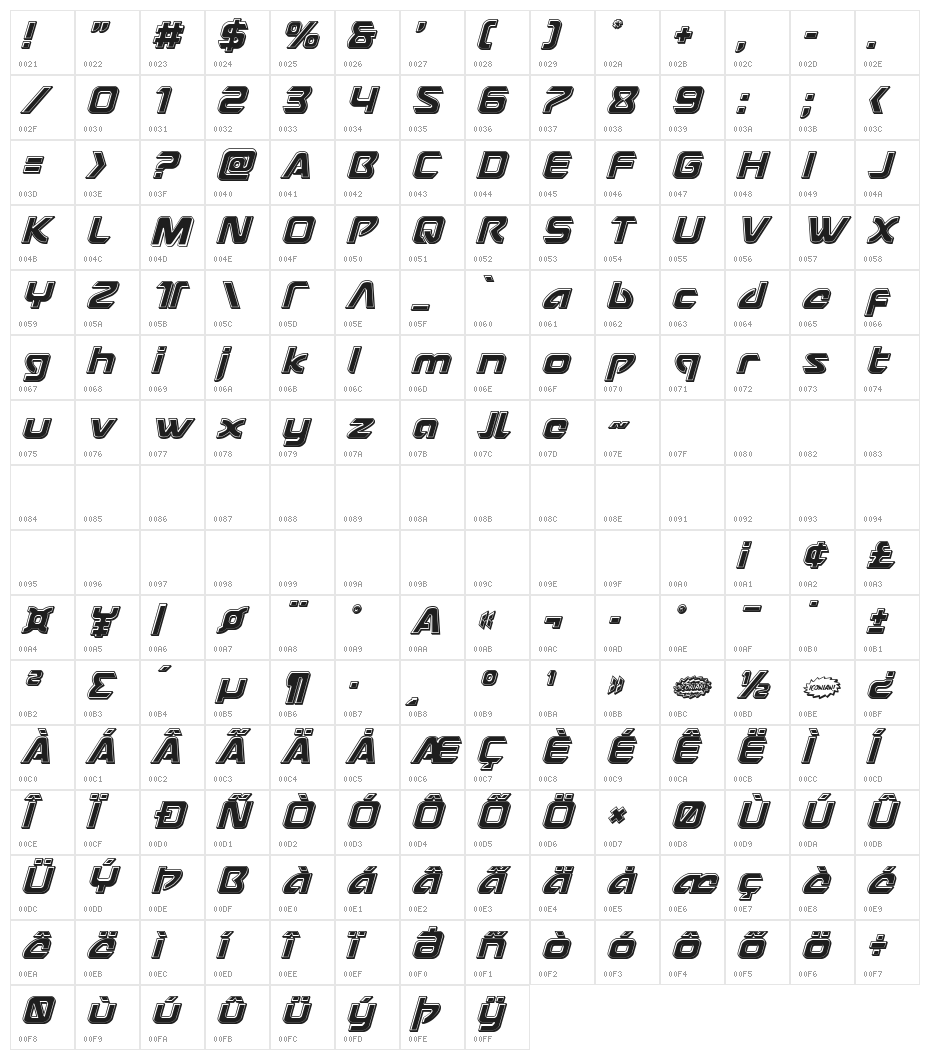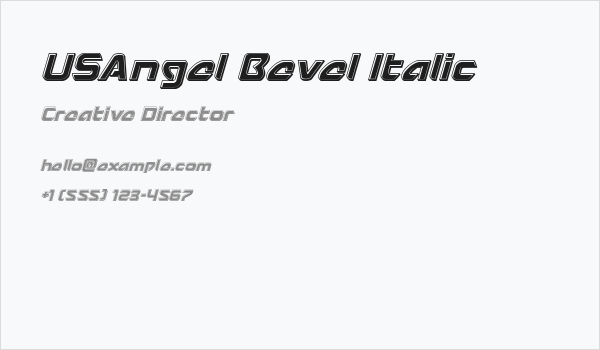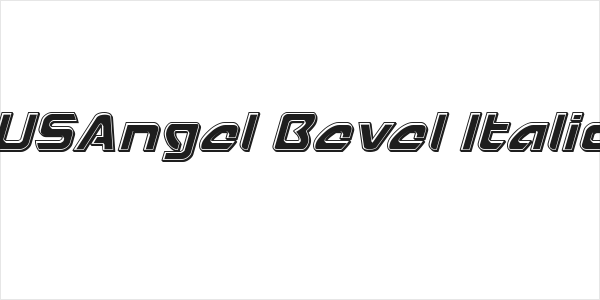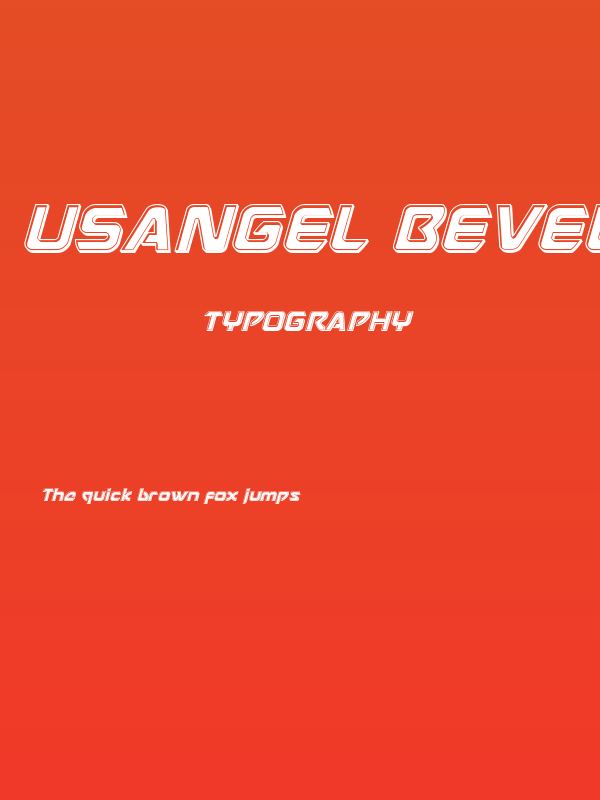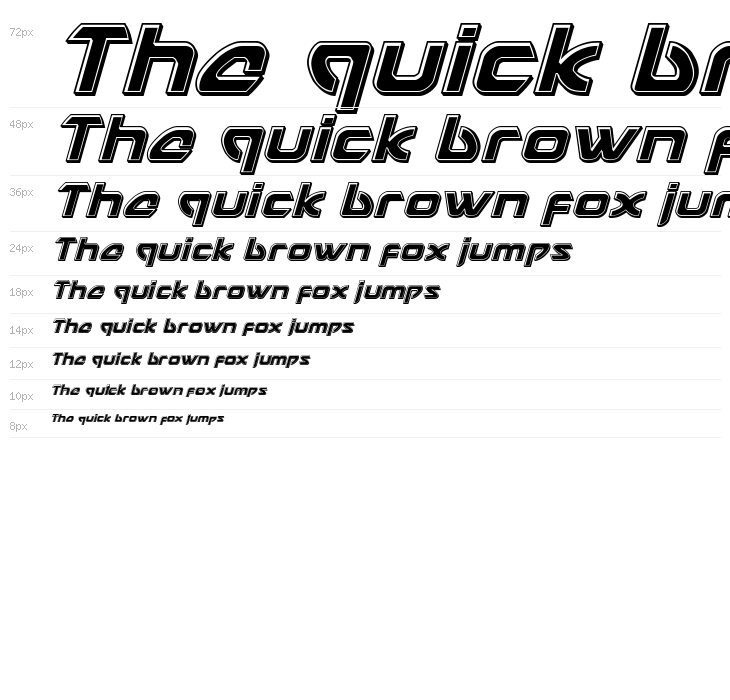
USAngel Bevel Italic Font
USAngel Bevel Italic Description
This font features a bold, italicized style with a distinct beveled effect, giving it a three-dimensional appearance. The characters are designed with sharp angles and clean lines, creating a futuristic and dynamic look. The uppercase and lowercase letters maintain a consistent style, with the lowercase letters slightly more rounded. Numbers and special characters follow the same design principles, ensuring uniformity across all glyphs. The font's unique beveled edges and italic slant make it stand out, suitable for projects that require a modern and eye-catching typeface.
| Proposed Projects | Ideal for futuristic designs, tech-related branding, video game titles, and dynamic posters. |